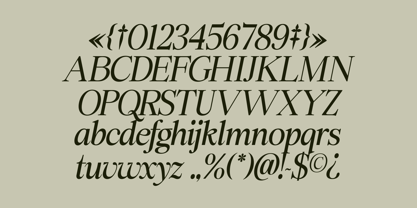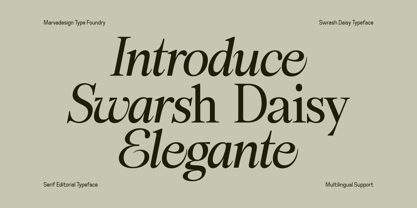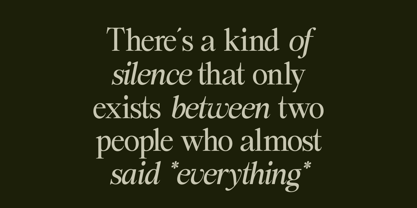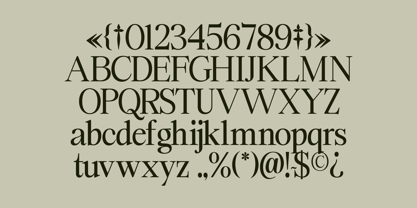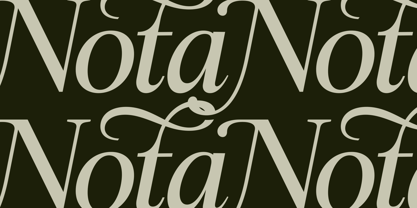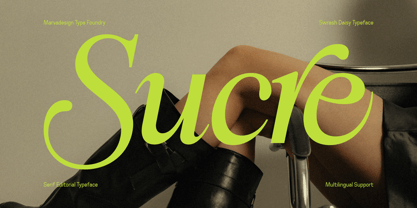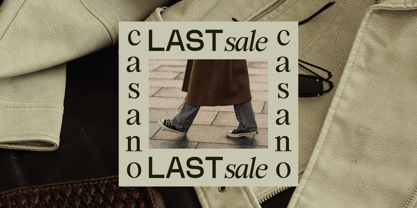
Swarsh Daisy
by Marvadesign
The Swarsh Daisy Font Family was designed by Febrie Setiawan and published by Marvadesign. Swarsh Daisy contains 2 styles and family package options. More about this family
The Swarsh Daisy a refined and contemporary serif font characterized by its high contrast between thick and thin strokes, elegant curves, and distinctive swash details. It blends classical serif elements with a modern, editorial flair—perfectly suited for use in fashion branding, magazine layouts, packaging, and artistic expressions. The font includes both regular and italic styles, each designed with thoughtful attention to rhythm and movement, enhancing the visual flow of the text. The italic characters, in particular, stand out with graceful, calligraphy-inspired forms that convey emotion and sophistication. The overall structure of the typeface maintains strong vertical stress, crisp serifs, and smooth transitions between letterforms, offering a harmonious balance between readability and ornamental appeal. Additional features such as stylistic alternates and multilingual support make it versatile for global and expressive design needs.
Designers: Febrie Setiawan
Foundry: Marvadesign